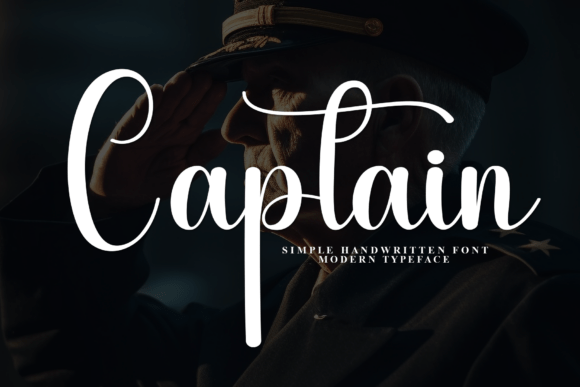
Meet the Captain of Your Design Crew
Have you ever stared at a blank page, waiting for inspiration to strike? For designers, those moments can be the most thrilling – and intimidating. But what if you had the perfect partner to bring your ideas to life? Enter Captain Font, the stylish script font that adds a touch of artistic flair to any design.
With its fluid brush strokes and dynamic curves, Captain Font is the perfect addition to any design arsenal. Whether you’re crafting a logo, invitation, or social media graphic, this font delivers both visual impact and versatility. As a valuable tool for designers, Captain Font offers a modern twist on traditional calligraphy, making it a game-changer for those looking to elevate their designs.
Captain Font Key Features
- Font Family: Captain Font is a unique, hand-drawn font family with 6 styles (Thin, Light, Regular, Medium, Bold, and Black) designed to evoke a sense of adventure and heroism.
- Size: The font family includes 6 styles, each with a unique character set, making it suitable for various design applications, from small text to large headings.
- Resolution: Captain Font is designed to be high-resolution, making it suitable for use in digital media, such as websites, apps, and social media, as well as print materials like brochures and posters.
- Unique Characteristics: Captain Font features a distinctive, hand-drawn style with a mix of bold and delicate lines, creating a sense of depth and texture that sets it apart from other fonts.
- Language Support: Captain Font includes a wide range of language support, making it suitable for use in international designs, including Latin, Cyrillic, and Greek alphabets.
Captain Font Review
At first glance, Captain Font has a rugged, adventurous vibe that screams ‘nautical’ or ‘vintage explorer’. I appreciate the bold, expressive lettering, which could add a lot of personality to the right design project. ✨ The font’s playfulness also makes it suitable for titles, headings, and other prominent text elements. ✨
- The font’s versatility is undeniable, and it can be easily adapted to various design styles, from casual to formal.
- Captain Font comes in multiple weights and styles, providing ample options for designers to experiment and find the perfect fit.
- The font’s unique, handwritten feel can add an extra layer of emotion and character to a design.
However, there are some limitations to consider. ⚠️ The font’s bold, cursive style can be overwhelming if not used judiciously. ⚠️ It may not be the best choice for large blocks of text, as it can be difficult to read. ⚠️ Additionally, some of the characters may not be as refined or polished as others, which could detract from the overall design.
Overall, Captain Font is a great option for designers looking to add some personality and flair to their projects. While it may have its limitations, the font’s unique qualities and versatility make it a valuable addition to any design toolbox.
For best results, use Captain Font in combination with bold or italic styles to add emphasis to your text.
Experiment with different font sizes to create visual hierarchy in your design.
Captain Font is ideal for:
Headlines and titles
Emphasizing key messages
Creating a bold and playful design